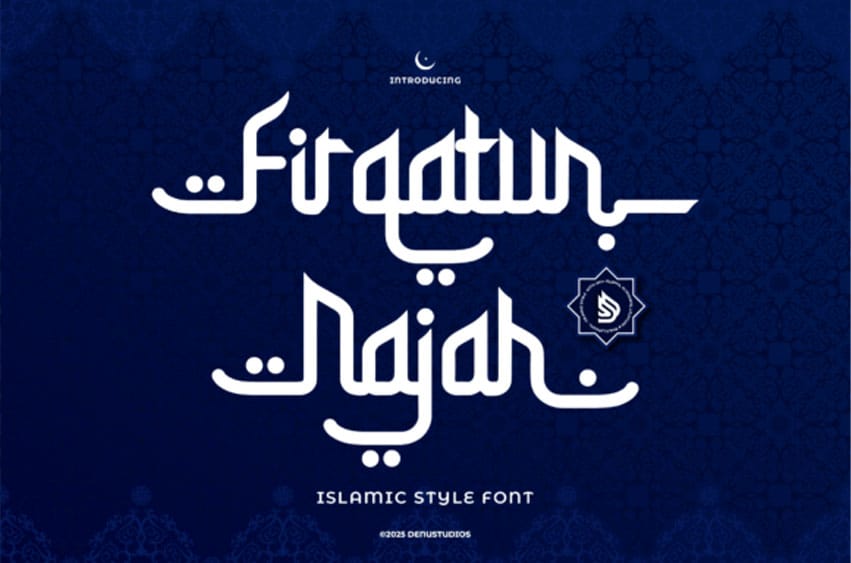
Firqatun Najah Font Modern meets tradition with Firqatun Najah, a structured and contemporary Islamic-style font.
Inspired by Kufic and Arabic calligraphy, this font is perfect for branding, religious posters, book covers, and event invitations. Its sleek design and geometric flow make it a striking choice for cultural and artistic projects.